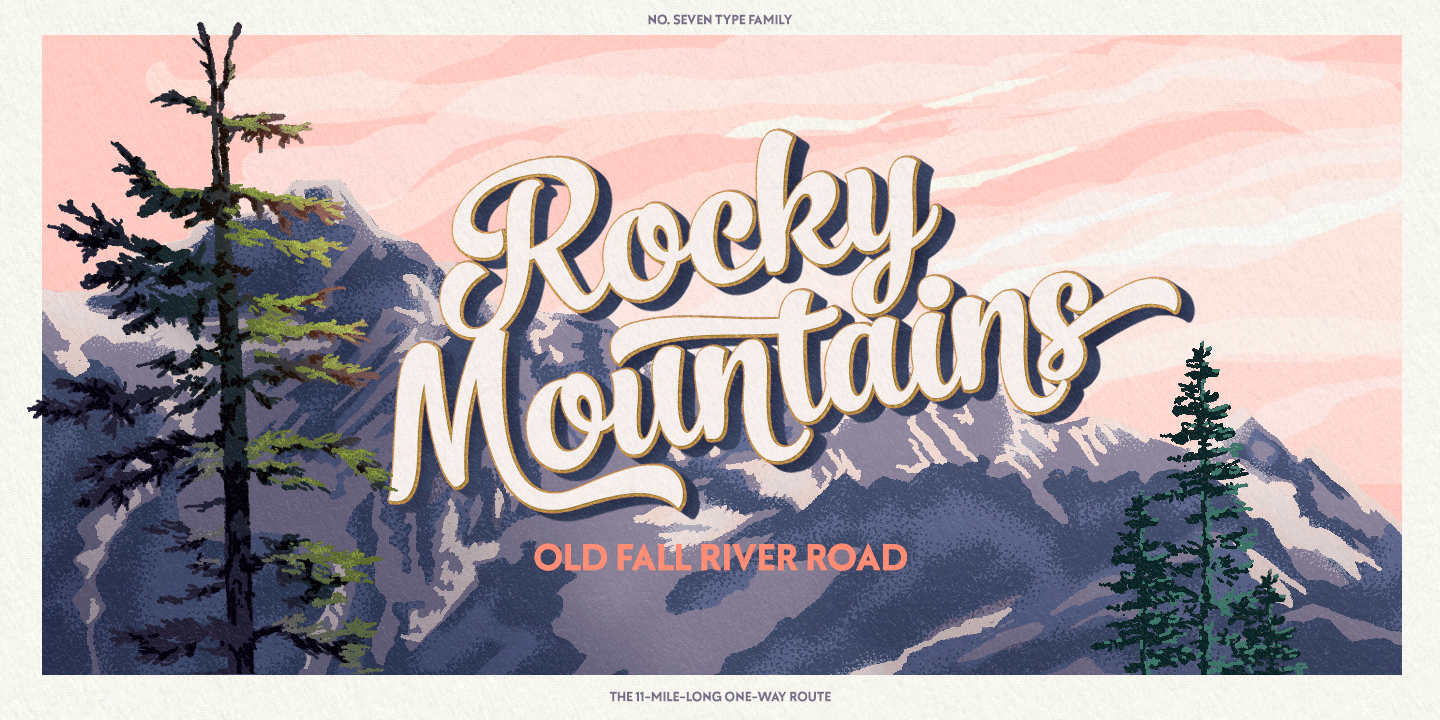
No. Seven Font is ideal for luxury perfume brands, exclusive fashion houses, premium whiskey distilleries, high-end boutique hotels, sophisticated cocktail bars, elite sports teams, and prestigious numbered collections. This distinguished typeface embodies the mystique and exclusivity of the number seven, bringing lucky sophistication and premium numbering elegance to any design project celebrating exclusive collections and limited edition luxury experiences.
What makes No. Seven Font exciting is its compelling combination of numerical mystique and luxury exclusivity that perfectly captures the cultural significance and premium appeal of the legendary number seven. The font features refined letterforms with sophisticated proportions and elegant character details that evoke both the mathematical precision of perfect numbers and the cultural mystique surrounding lucky sevens. Its prestigious character appeals to luxury consumers while maintaining excellent readability for both product numbering and premium brand applications.
The No. Seven Font family includes multiple weights with complementary italic variations and luxury ornamental elements. The character set features premium ligatures, numerical symbols, exclusive alternates, and sophisticated decorative accents that enhance the font's distinguished appeal. Advanced OpenType features provide creative flexibility for international luxury brands and multilingual premium collection applications.
Whether you're designing luxury product collections, creating exclusive brand materials, or developing premium numbered series content, No. Seven Font Free Download provides exceptional sophistication and versatility. This prestigious typeface transforms ordinary text into exclusive luxury experiences that celebrate premium numbering while establishing distinguished brand recognition in competitive luxury goods and exclusive collection marketplaces.